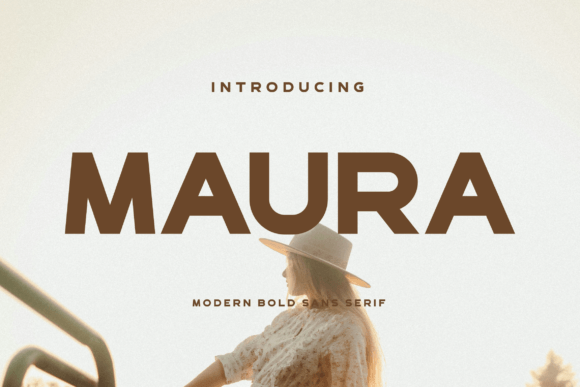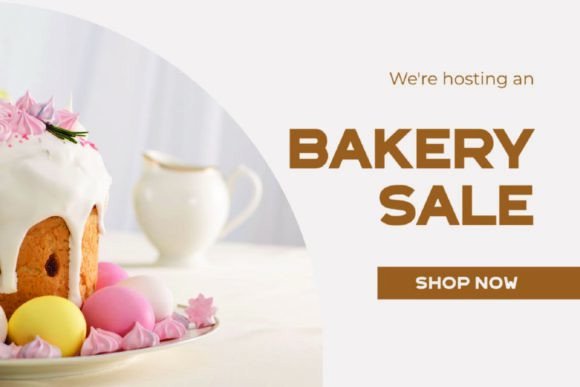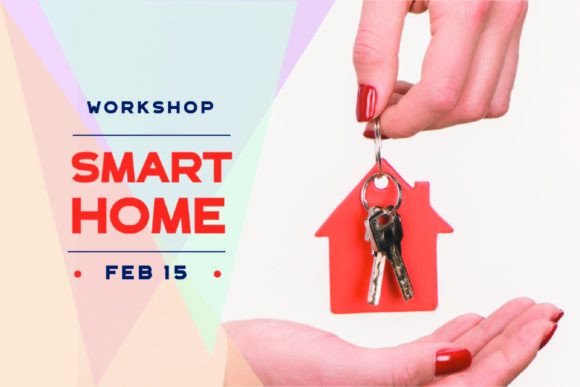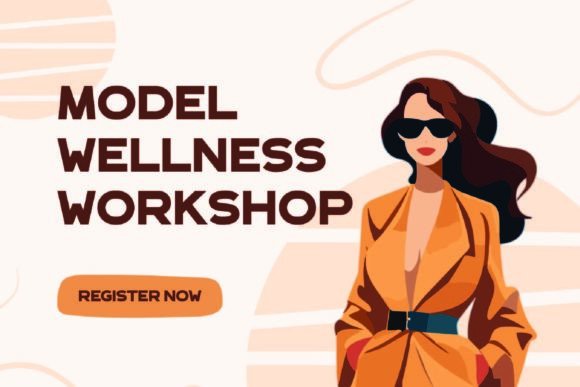
Maura Font: A Modern Sans Serif for Bold Branding & Headlines
About the Maura Font
Make a bold statement with Maura Font, a powerful and memorable font. Maura is a straightforward and bold sans-serif font that embodies simplicity and clarity. Its clean lines and balanced proportions make it perfect for various design applications, from body text in publications to headers on websites. Maura maintains readability while offering a modern and uncluttered aesthetic for your projects.
Maura’s bold structure shines in headlines, branding applications, and short-form content like posters and signage. Its strong presence commands attention without being overwhelming. However, its boldness makes it less suitable for lengthy body text or UI elements where high readability over extended periods is crucial.
The font’s straightforward nature pairs well with both serif and script fonts to create visual contrast and interest. Consider pairing Maura with a classic serif like Garamond for a sophisticated feel, or a flowing script like Pacifico for a more playful, approachable brand identity. A geometric sans-serif like Montserrat could also work to maintain a modern, consistent aesthetic.
Maura projects a confident and modern personality; it’s best suited for brands that want to convey strength, clarity, and a sense of forward momentum. Think tech startups, corporate branding needing a clean look, or products emphasizing quality and innovation.
Maura Font Usage Examples
Maura Font Example